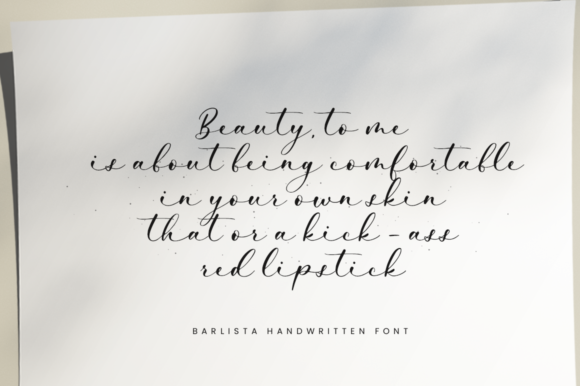
Barlista Font
db-ku.com - Script & Handwritten -- Barlista is a beautiful and delicate calligraphy font. It is perfect for crafting, branding, invitation, stationery, wedding designs, social media posts, advertisements, product packaging, product designs, label, photography, watermark, special events or anything else you can think of.